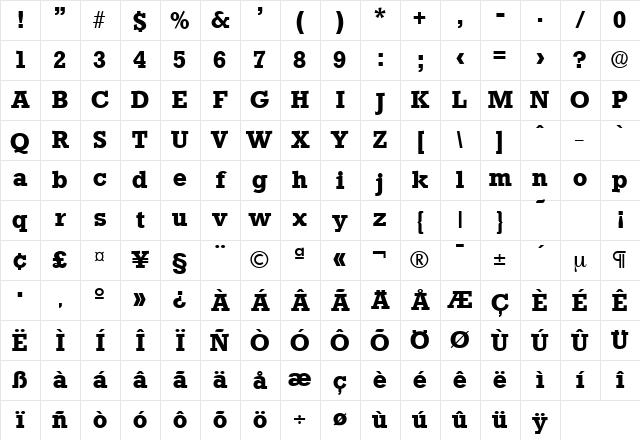
Stafford-Serial Bold
Stafford-Serial Family
Stafford-Serial Bold
Design Context for Stafford-Serial
Stafford-Serial is a composed and adaptable typeface that performs quietly and consistently across a wide range of design contexts. Its bold stroke weight gives it real presence on the page.